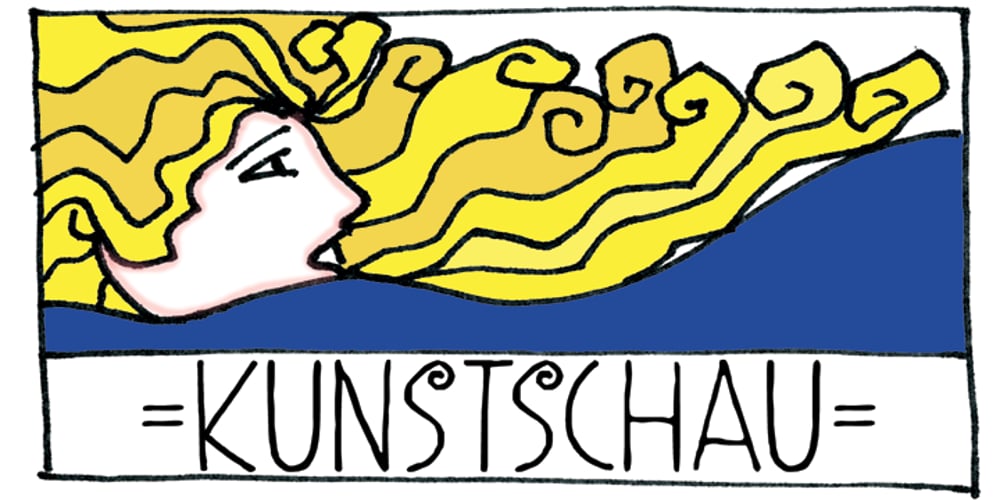
Kunstschau
Kunstschau font
Kunstschau Font Family was designed by David Kerkhoff and published by Hanoded. Kunstschau contains 2 styles and family package options. The 1908 art exhibition in Vienna (Kunstschau 1908) featured works by Josef Hoffmann, Cark Otto Czeschka and Gustav Klimt, who showcased his famous painting ‘The Kiss’. Kunstschau font was modeled on a stamp, designed by Austrian artist Bertold Löffler, for the 1908 exhibition. Kunstschau is a loose, handwritten font which comes with a distinct all caps upper and lower case, plus an extensive language support.